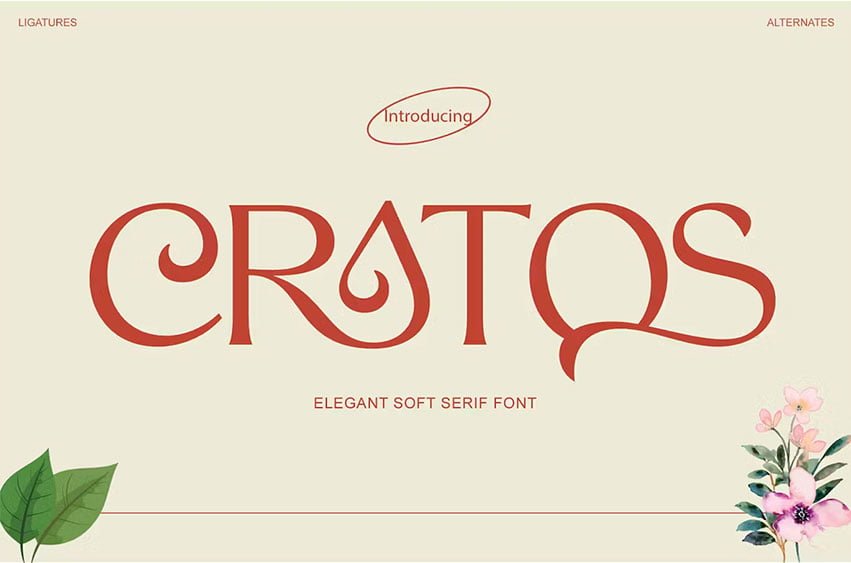
Cratos Font
Cratos Font will perfect for many project: book, magazines, logo, branding, photography, quotes, blog header, poster, advertisements, etc.